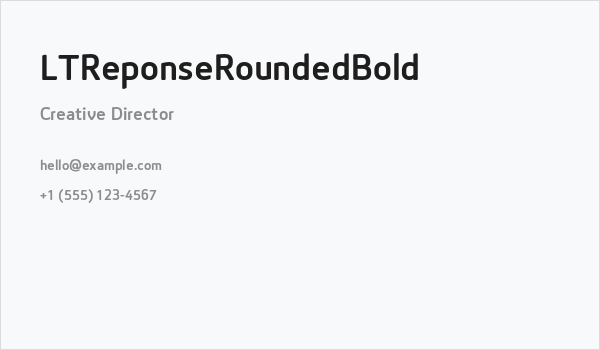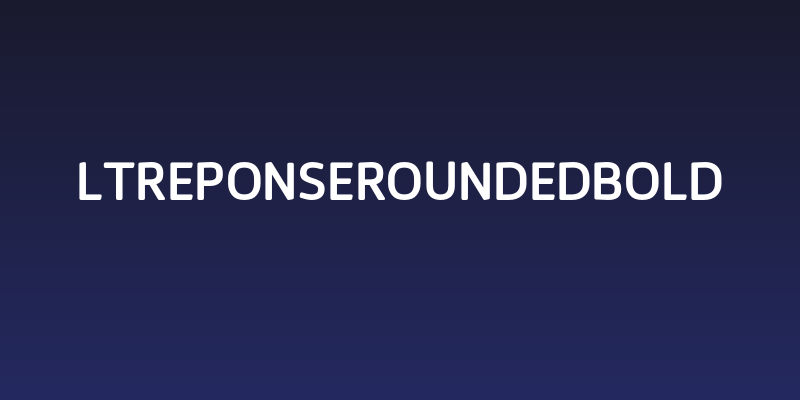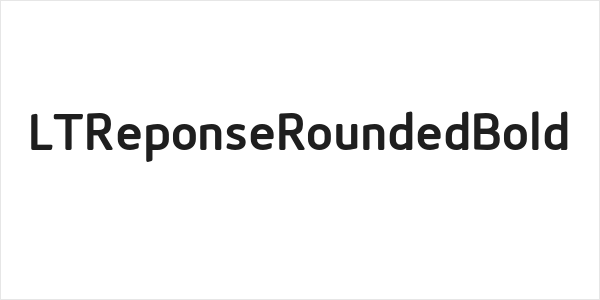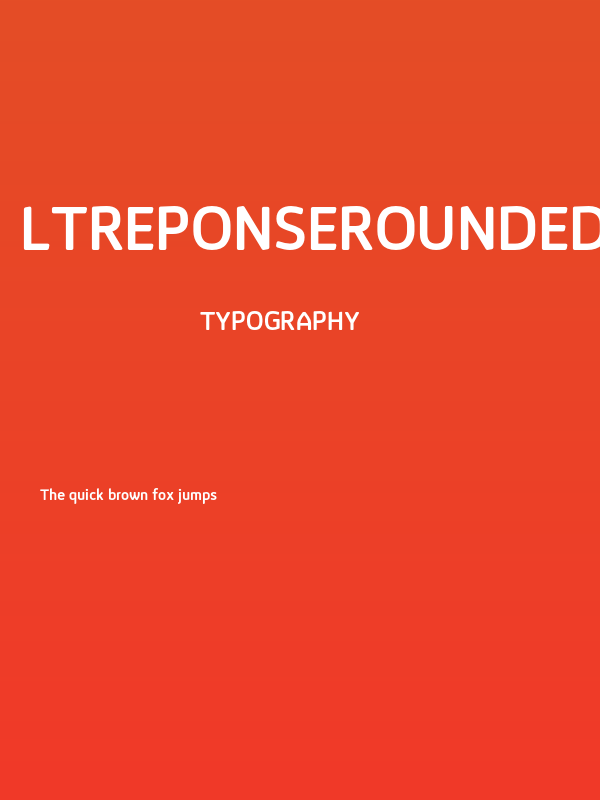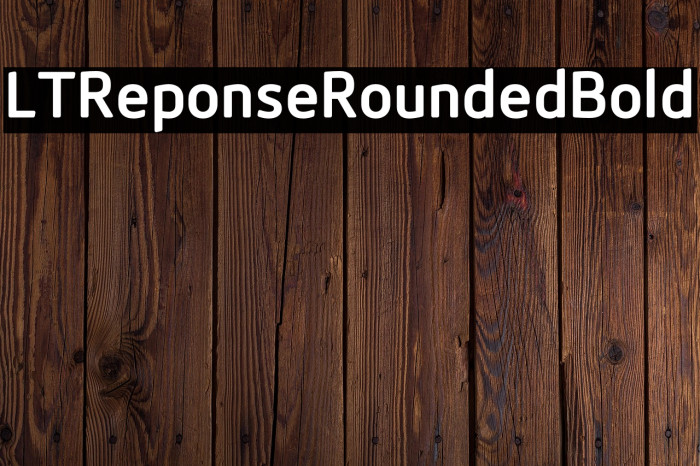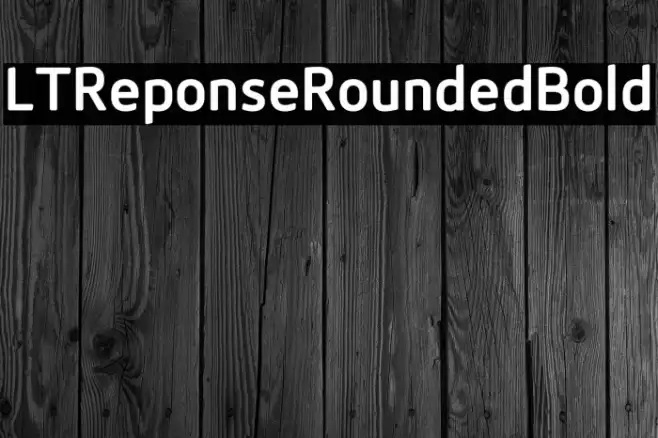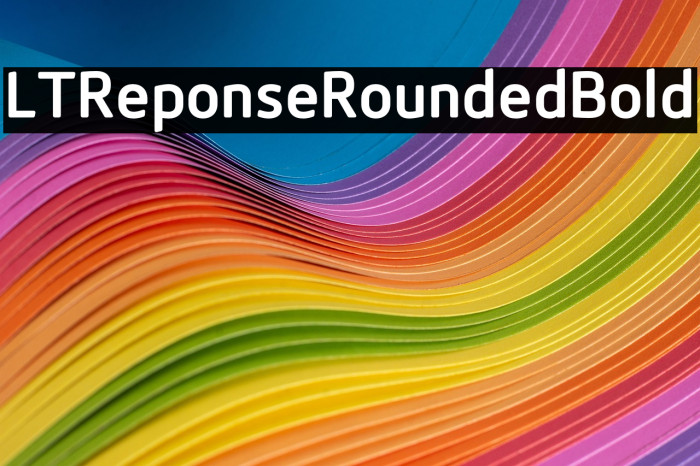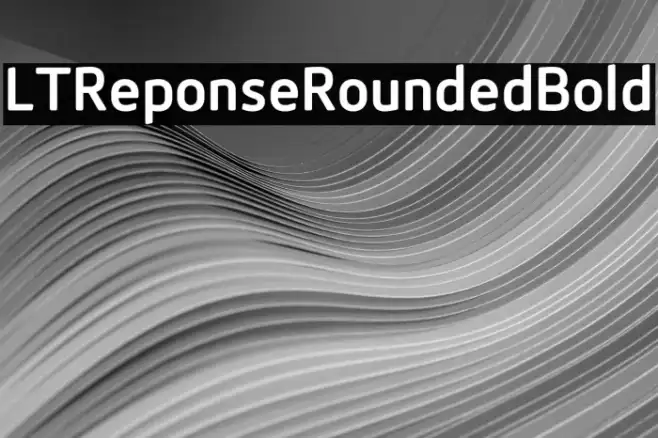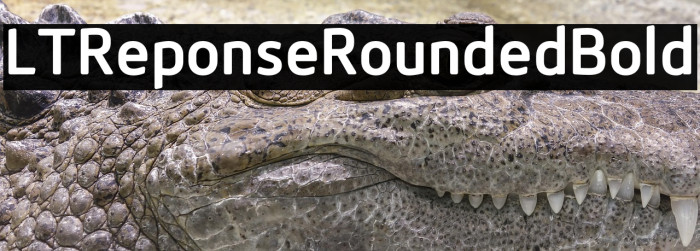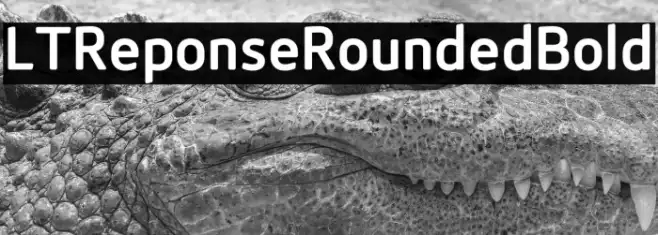
LTReponseRoundedBold Font
LTReponseRoundedBold Description
This font features a modern, rounded design with a bold weight that gives it a friendly and approachable appearance. The characters are evenly spaced, providing a clean and balanced look. The rounded edges soften the overall feel, making it suitable for a variety of applications. The uppercase and lowercase letters maintain a consistent style, with smooth curves and a uniform stroke width. Numbers and special characters are designed to complement the alphabet, ensuring readability and aesthetic harmony across all text elements.
| Proposed Projects | Ideal for branding, advertising, packaging, and digital media where a modern and friendly look is desired. |